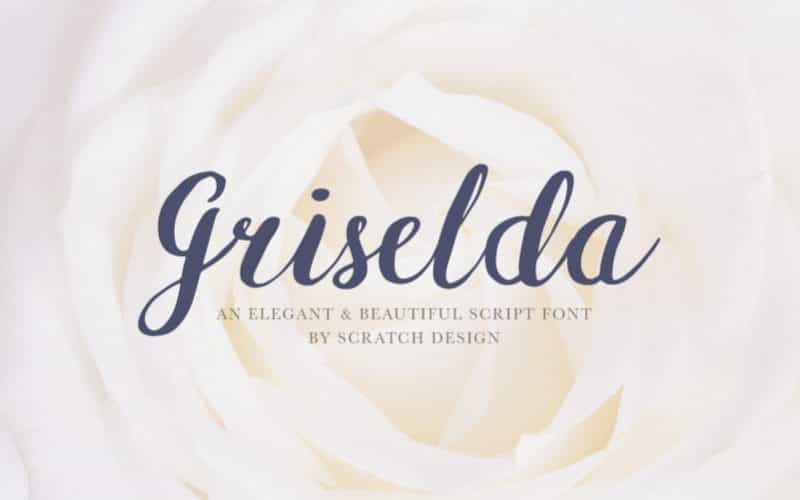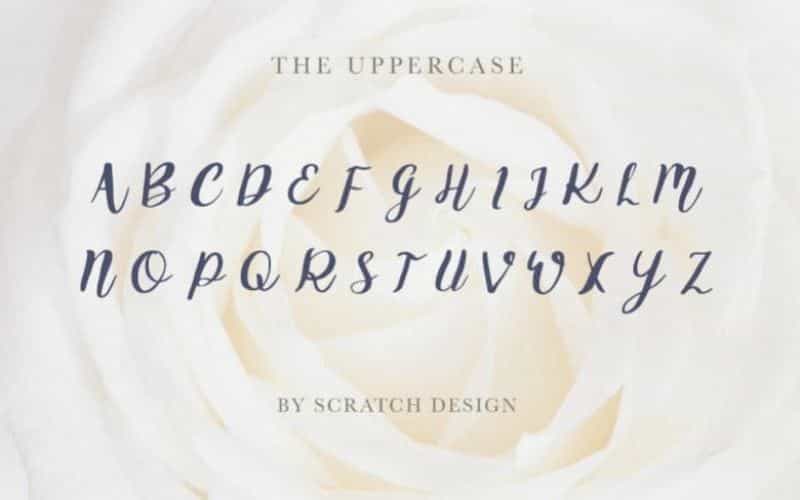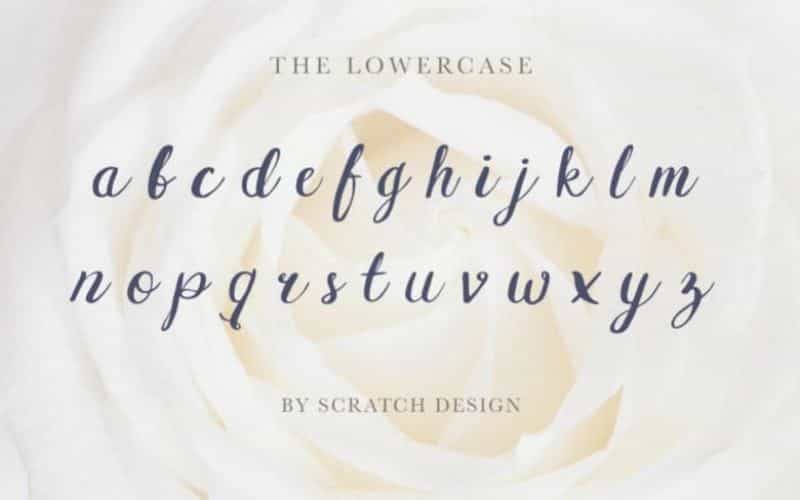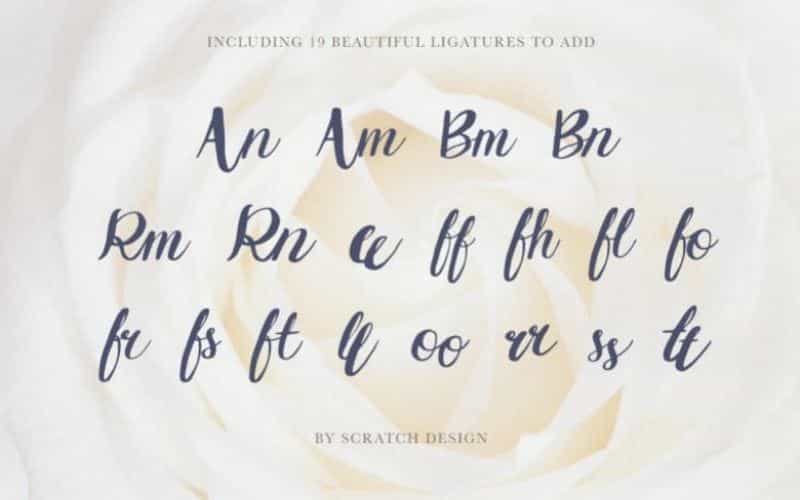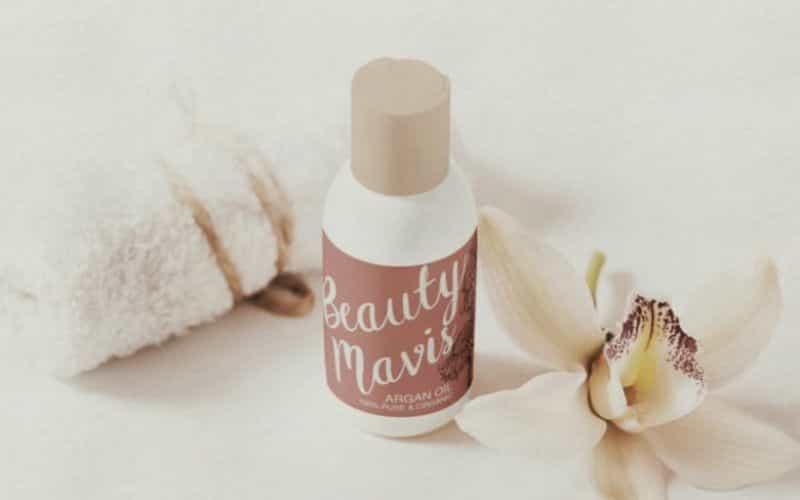
Permit us to present to you, Griselda. A handwritten font which was designed in a way that it could not be more perfect in combining an informal, sweet, romantic script and the hand drawn design elements. Great for greeting cards, branding, stationery design, social media, packaging, magazine layouts, prints and many other things. Moreover, Griselda has ligatures to make your day complete as well.